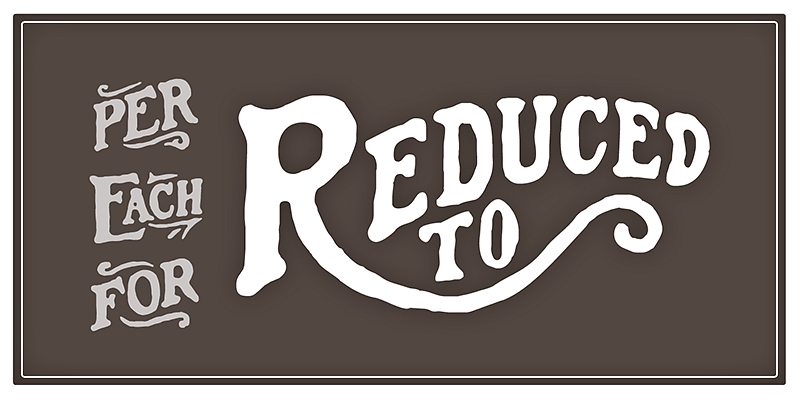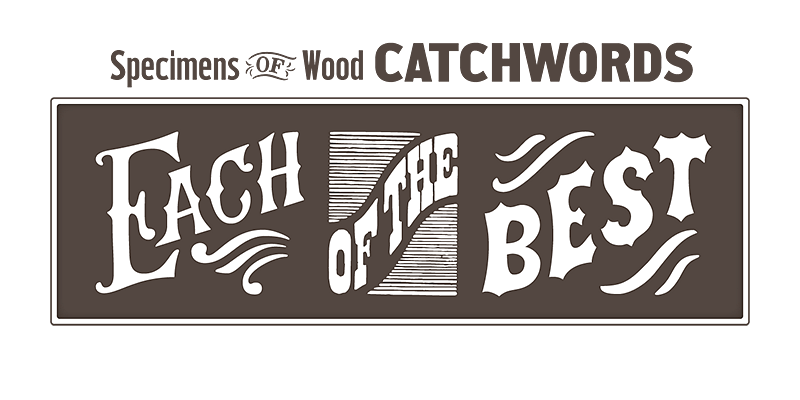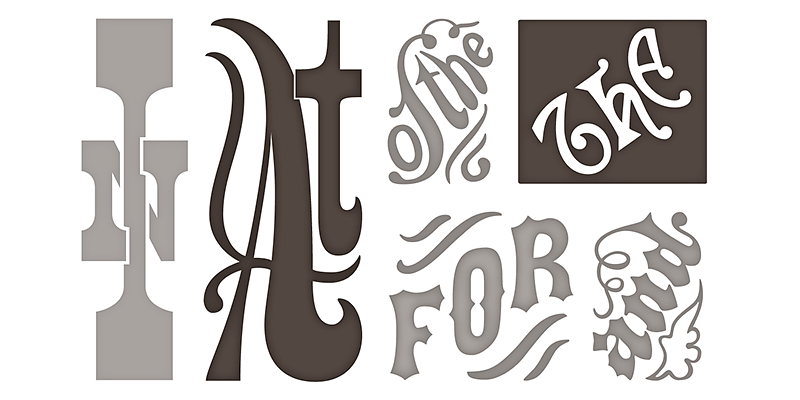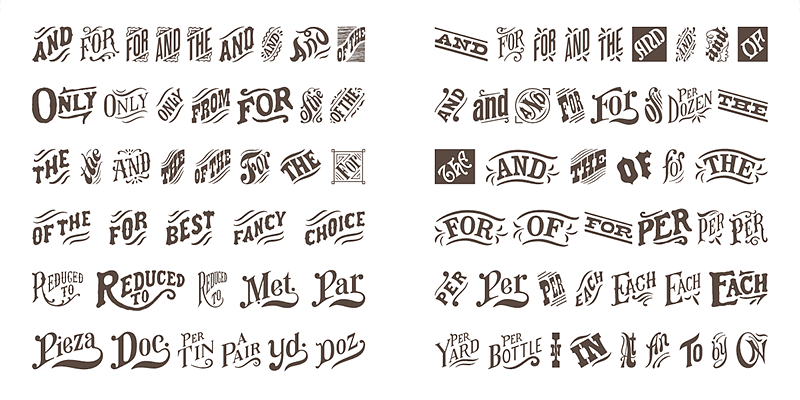
HWT Catchwords features over 80 words—like ‘The’, ‘And’, ‘To’, ‘For’—based directly on designs offered by Hamilton and other wood type manufacturers of the 19th century.
Hamilton Wood Type Collection, established in 2012, is a joint venture between P22 Type Foundry and the Hamilton Wood Type & Printing Museum. The founding goal was to safeguard a typographic era and make classic wood type designs available as digital fonts for modern audiences. This historical collection of serif revivals, sans reinterpretations, decorative embellishments, script reclamations, and original chromatic designs is stunningly relevant and usable for any imaginative design practice.